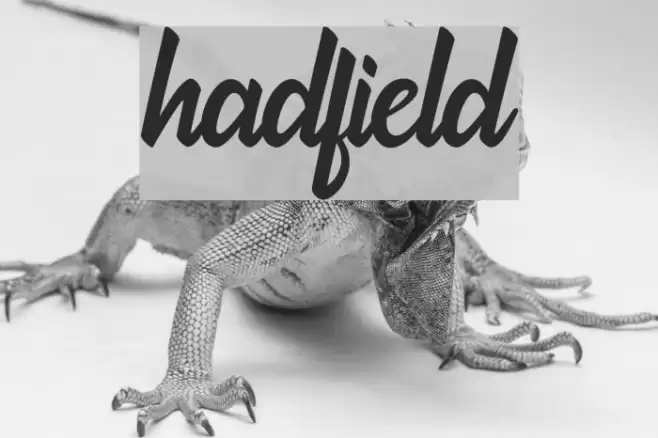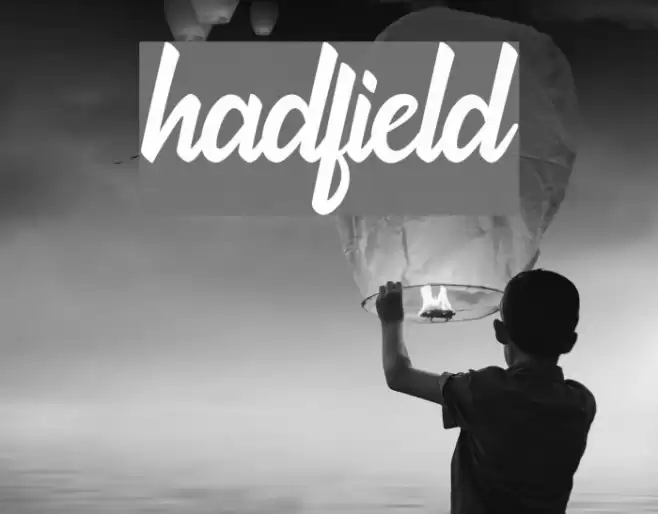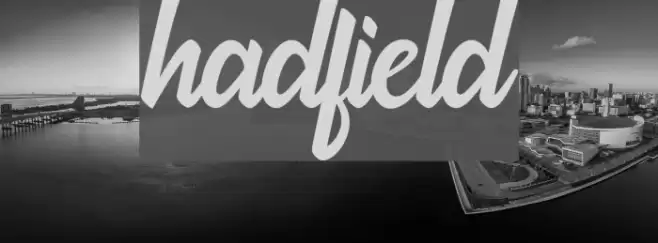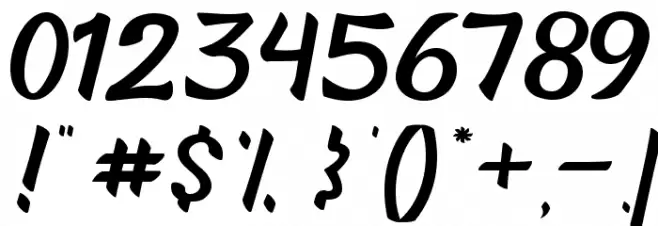
hadfield Font
hadfield Description
This font features a dynamic and flowing script style with a bold presence. The uppercase letters exhibit a graceful yet assertive flair, characterized by smooth curves and elegant loops. The lowercase letters maintain a cohesive and fluid appearance, enhancing readability while retaining a sense of artistic expression. The numerals are bold and easily distinguishable, complementing the overall aesthetic. Special characters are crafted with the same attention to detail, ensuring consistency across all glyphs. This font's bold strokes and fluid design make it ideal for projects that require a touch of elegance and creativity.
A bold, flowing script font with elegant curves and dynamic style from Uncategorized fonts.
- Proposed Projects: Ideal for branding, invitations, greeting cards, and artistic posters.
- Use Case: Logos, Headlines, Artistic projects